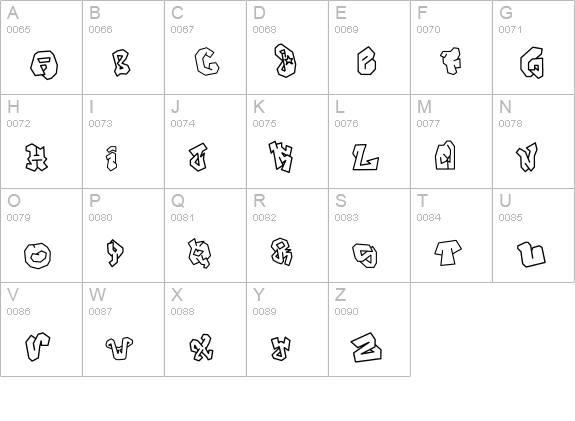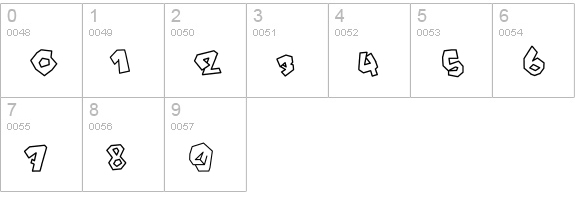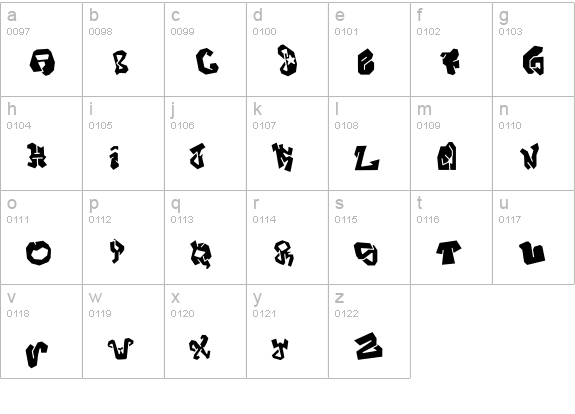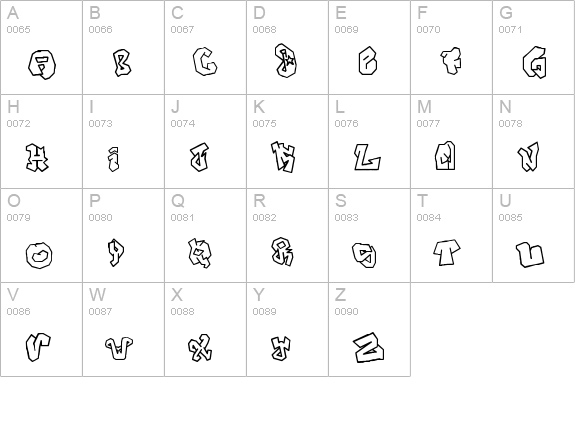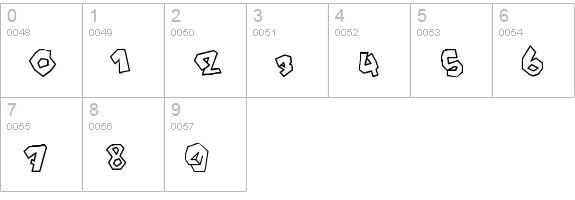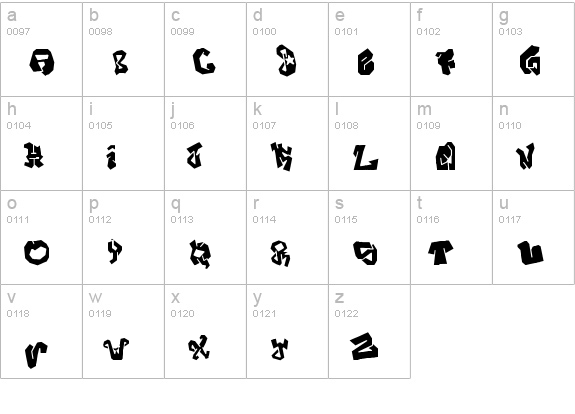
JOKER SIZE Font Details
Introducing JOKER SIZE font, a bold and captivating typeface that is sure to make a statement. With its unique and playful design, this font is perfect for those who want to add a touch of fun and excitement to their projects. JOKER SIZE font stands out from the crowd with its larger-than-life characters that demand attention. Each letter is meticulously crafted with intricate details, making it a truly eye-catching choice for headlines, logos, posters, and more. But what makes JOKER SIZE font even more appealing is the fact that it is completely free to download. That's right, you can easily get your hands on this remarkable font without spending a dime. Simply visit FontsMarket.com, and you'll have access to this amazing font, ready to enhance your creative endeavors. Whether you're a designer looking for a fresh and bold font to make your work stand out, or an individual wanting to add some personality to your personal projects, JOKER SIZE font is the ideal choice. Its versatility allows it to adapt to various styles and themes, making it suitable for a wide range of applications. So, why settle for ordinary when you can have extraordinary? Download JOKER SIZE font today and let your creativity shine with this captivating typeface that is freely available at FontsMarket.com.